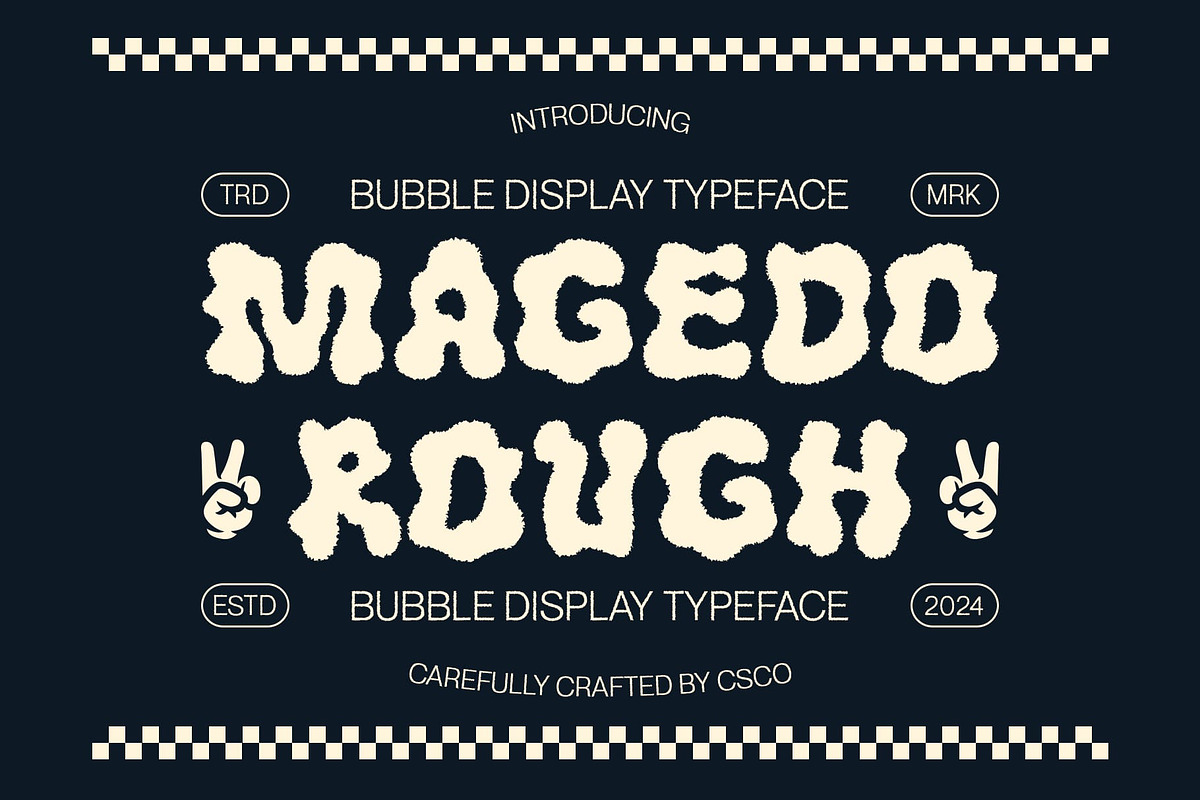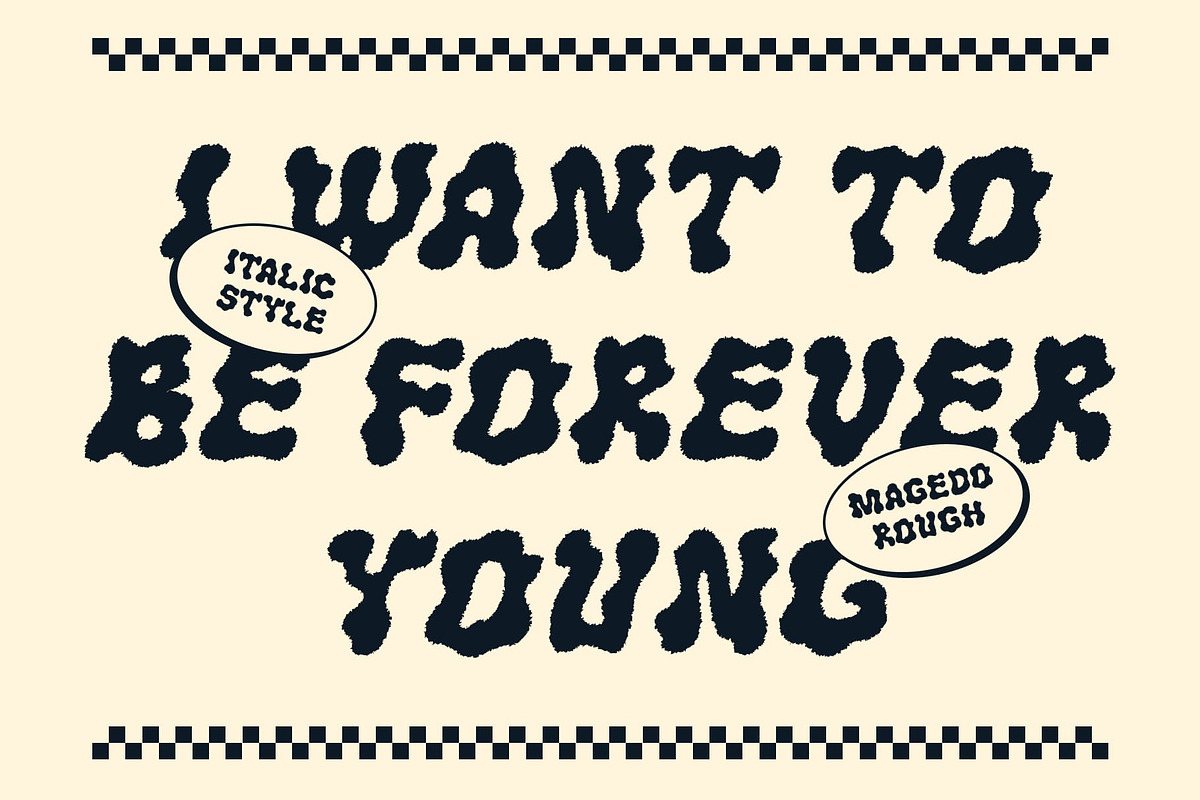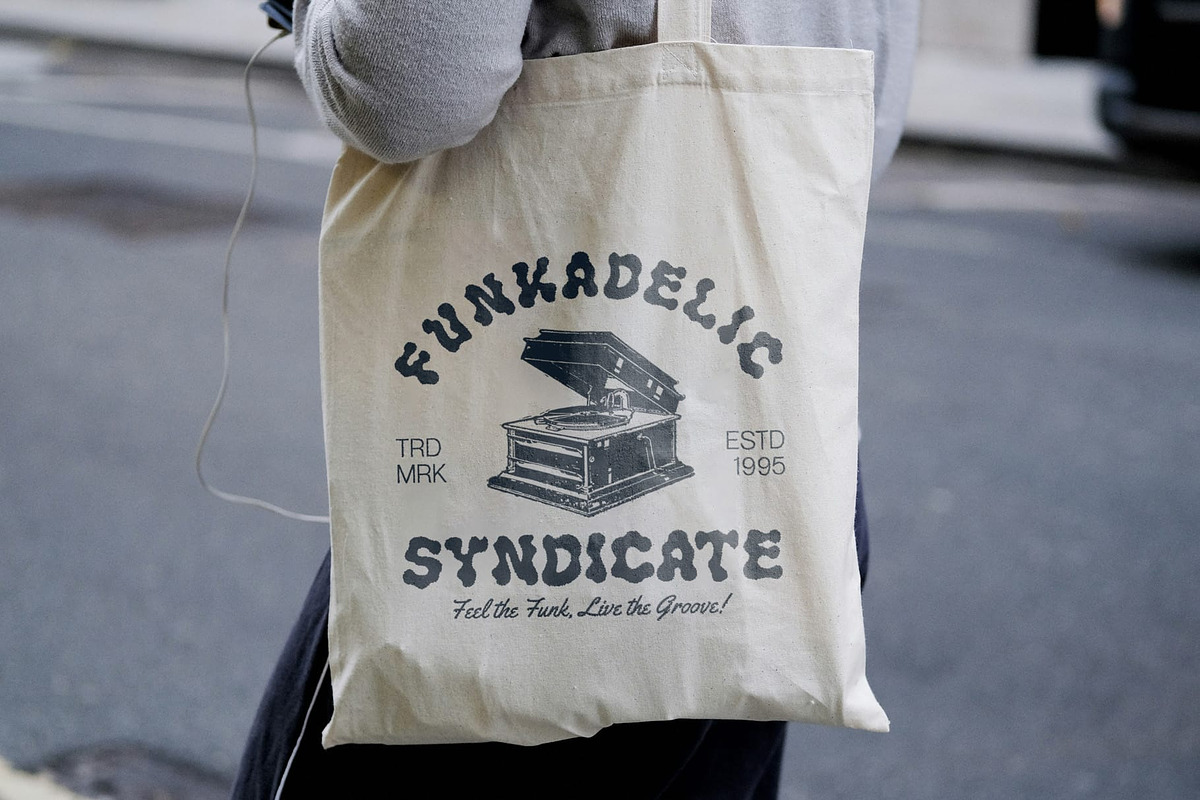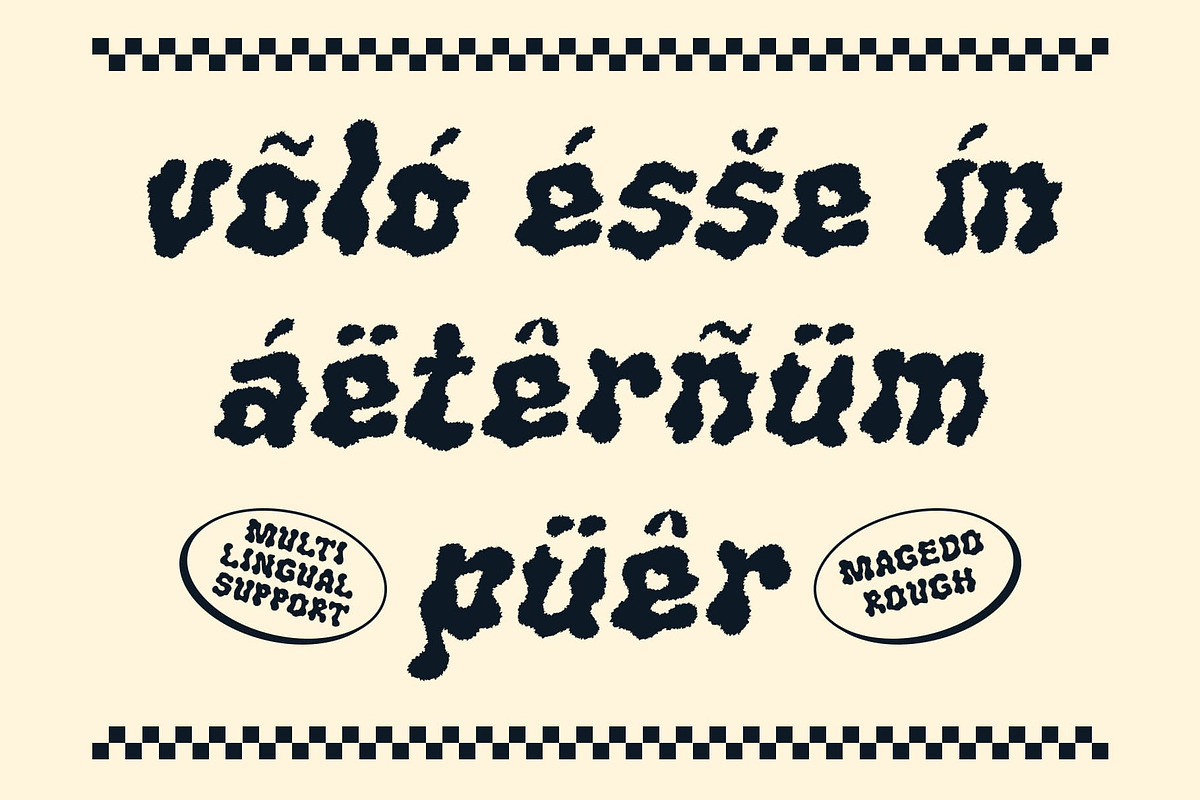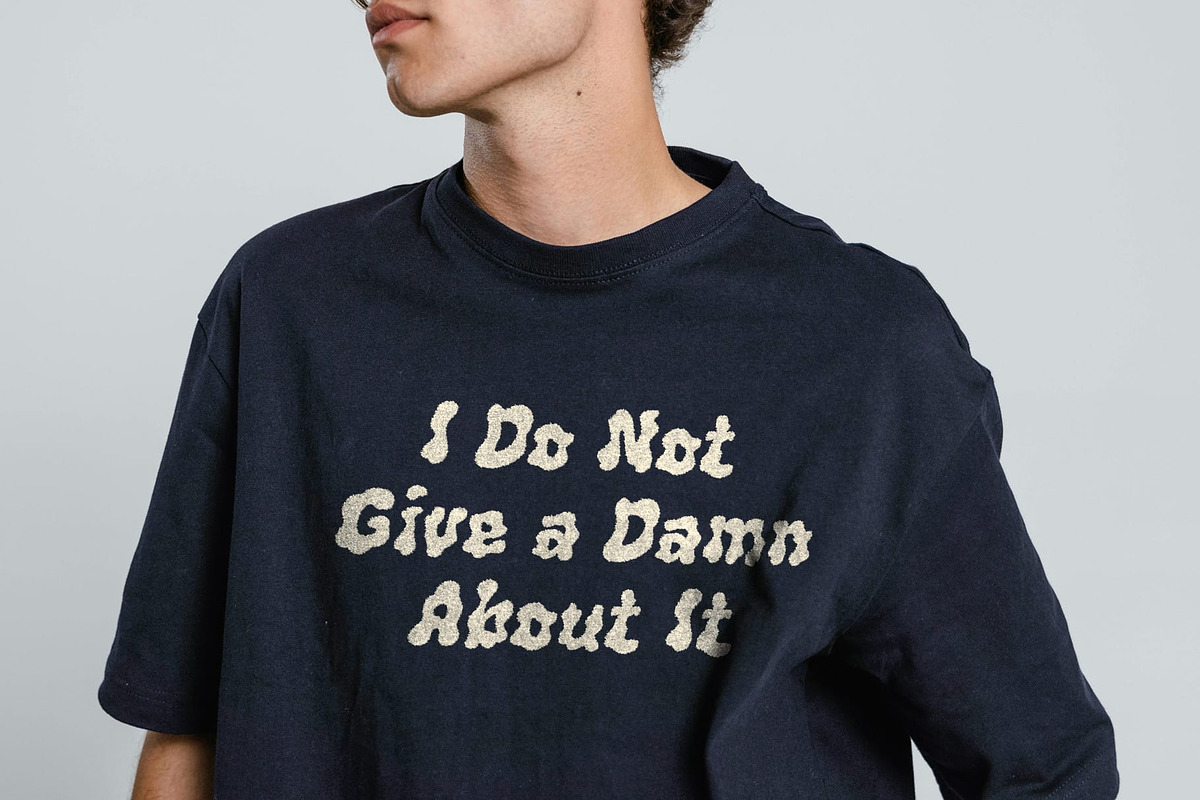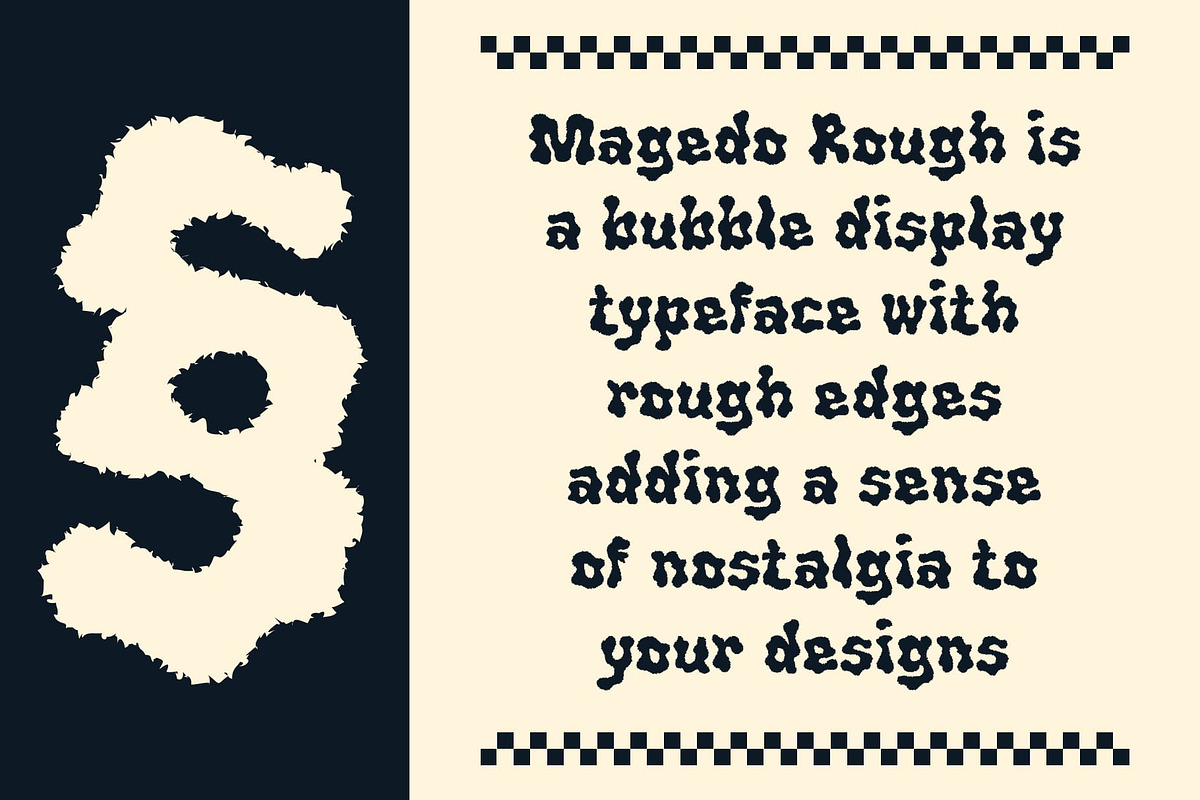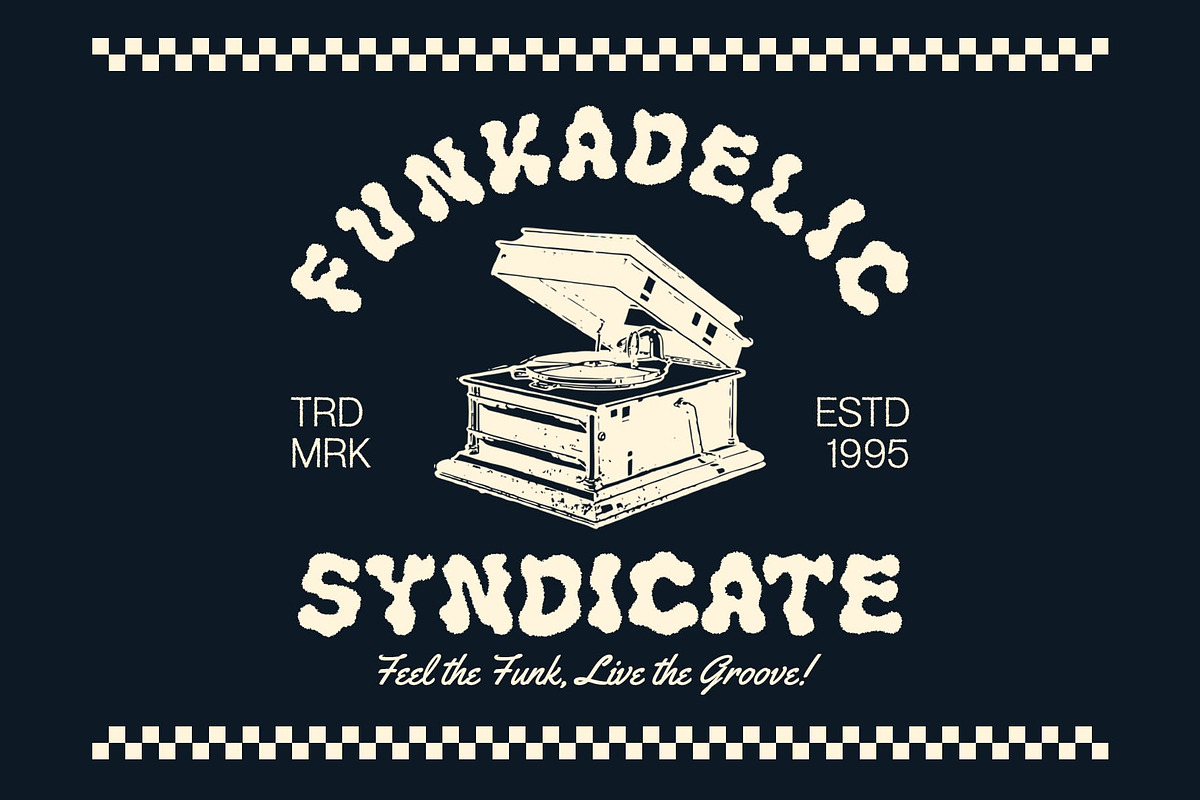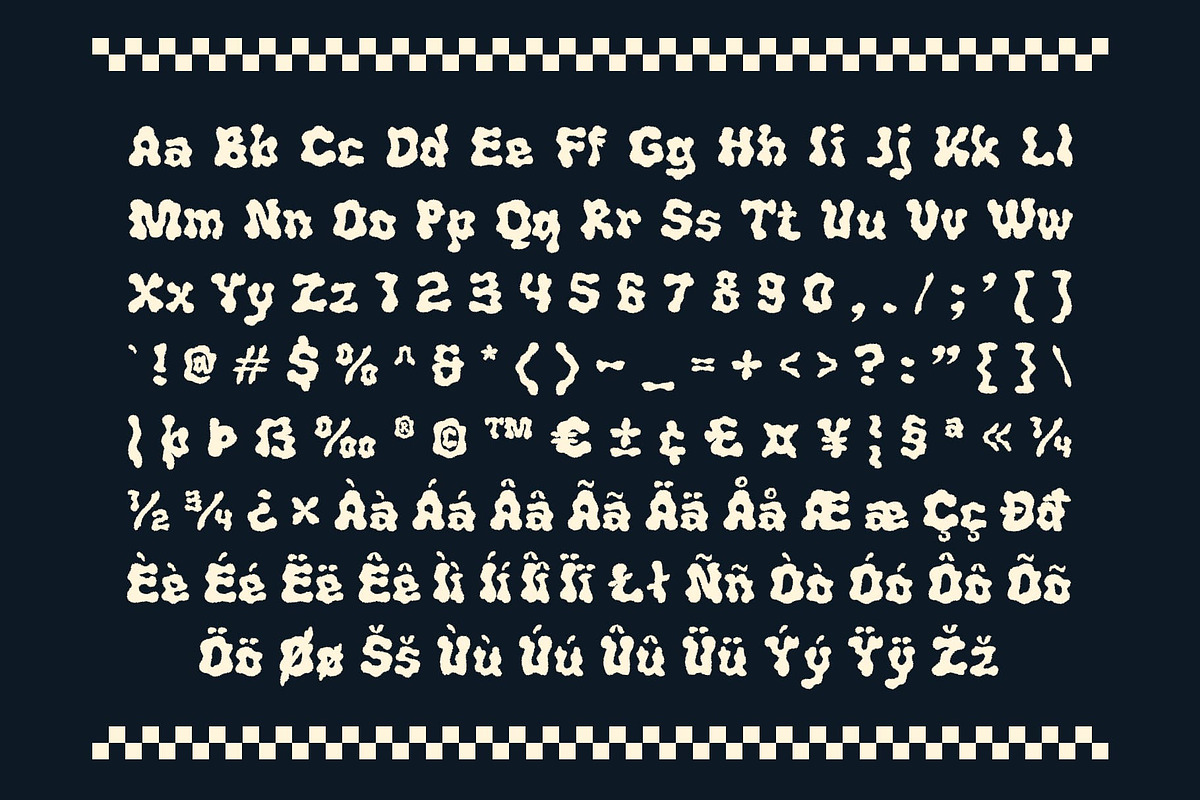
Magedo Rough
Magedo Rough – Psychedelic Display Font with Rugged Texture
A Vibrant Fusion of Psychedelic Flair and Textured Edge Magedo Rough is a display font that combines psychedelic shapes with a distinctive rough effect, resulting in a design that is both vibrant and expressive. The psychedelic form features swirling, unconventional letterforms that create an energetic and eye-catching appearance. Coupled with the rough effect, which introduces a rugged, uneven texture, the font gains an artisanal and dynamic quality that enhances its visual impact.
Ideal for Bold and Colorful Designs With its unique blend of swirling psychedelic shapes and rugged texture, Magedo Rough is perfect for designs that seek to stand out and make a statement. The font’s funky and lively vibe makes it especially suited for music posters, event graphics, and bold promotional materials. It captures attention and conveys a colorful, exuberant atmosphere, making it an excellent choice for projects that aim to highlight creativity and energy.
Dynamic and Artistic Expression Magedo Rough offers a dynamic visual experience with its blend of psychedelic forms and rough texture. The font’s design is perfect for conveying a sense of fun and vibrancy, making it a versatile choice for various creative projects. Whether you’re crafting music-related visuals, organizing vibrant events, or designing striking promotional materials, Magedo Rough delivers a unique and memorable look that will captivate and engage your audience.